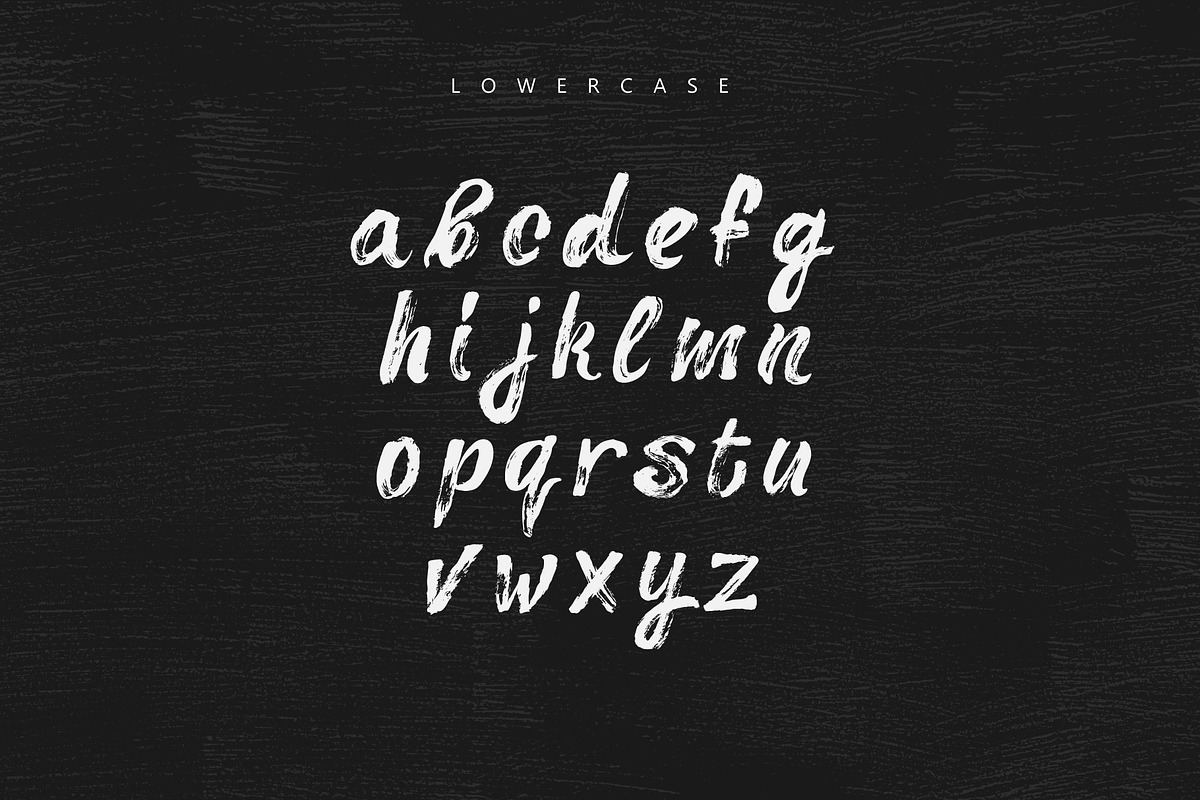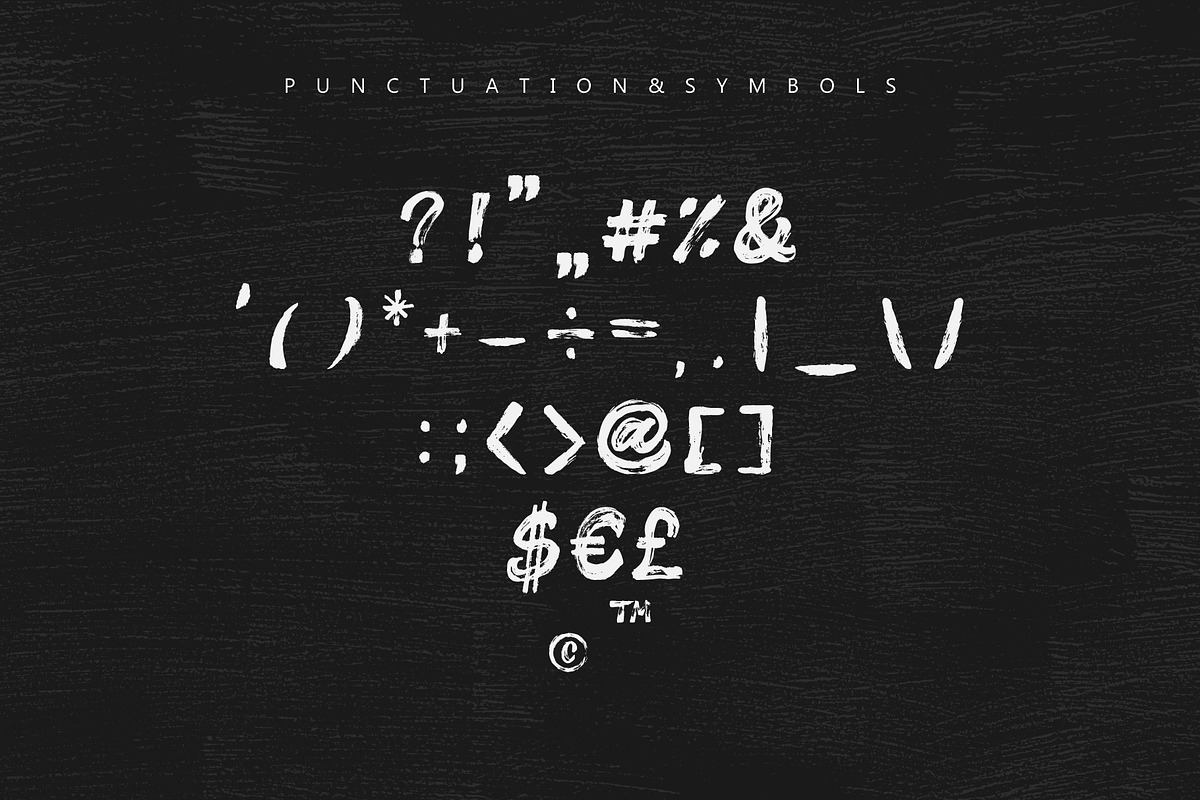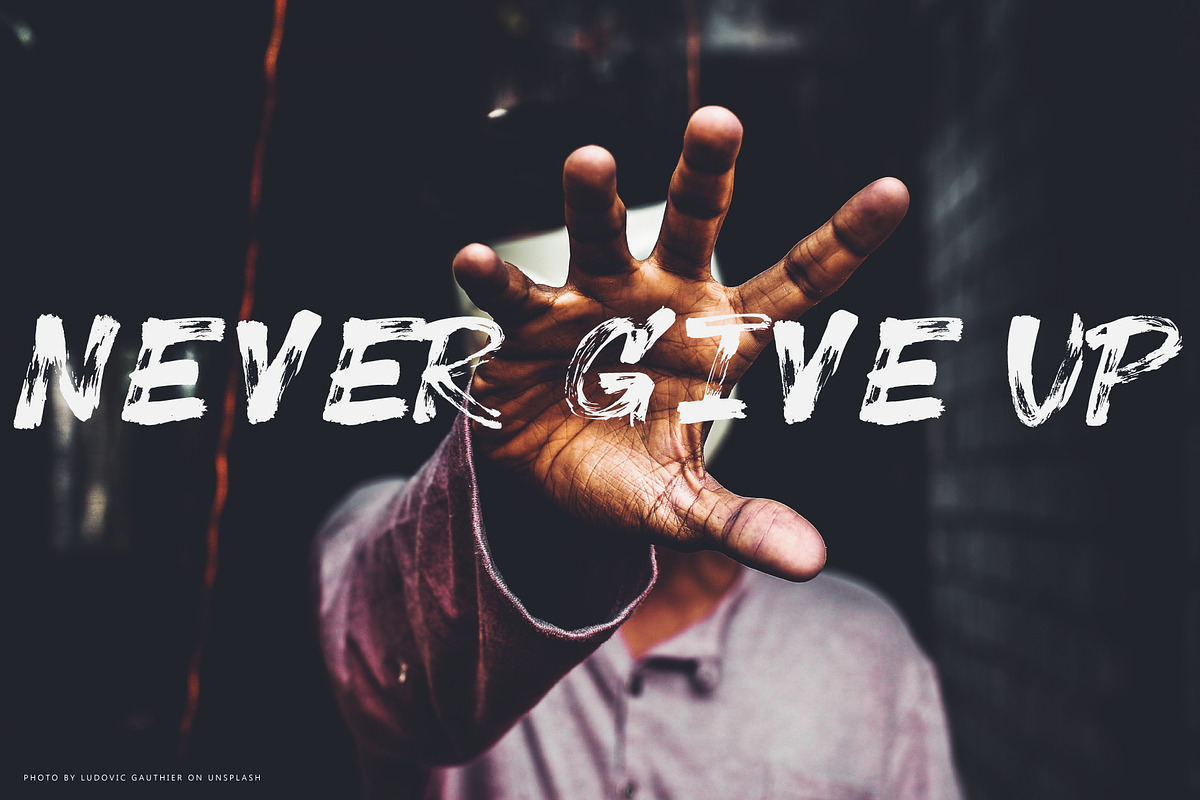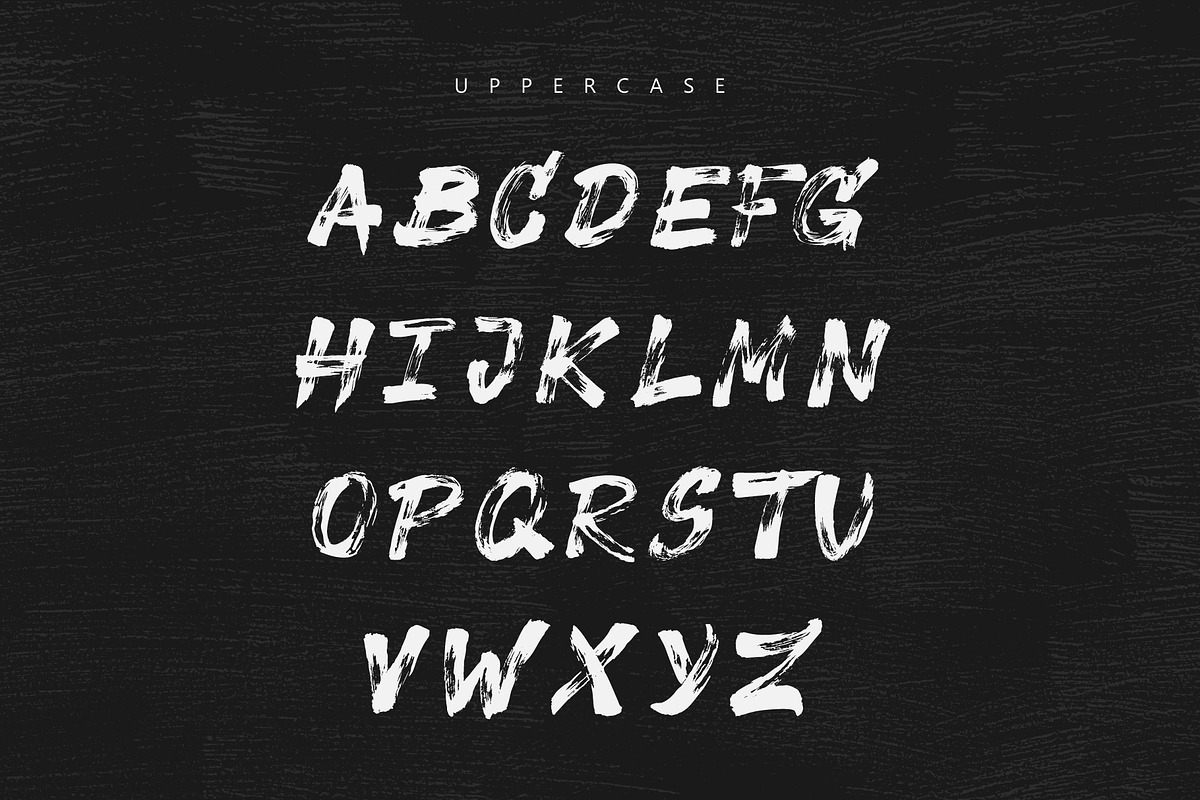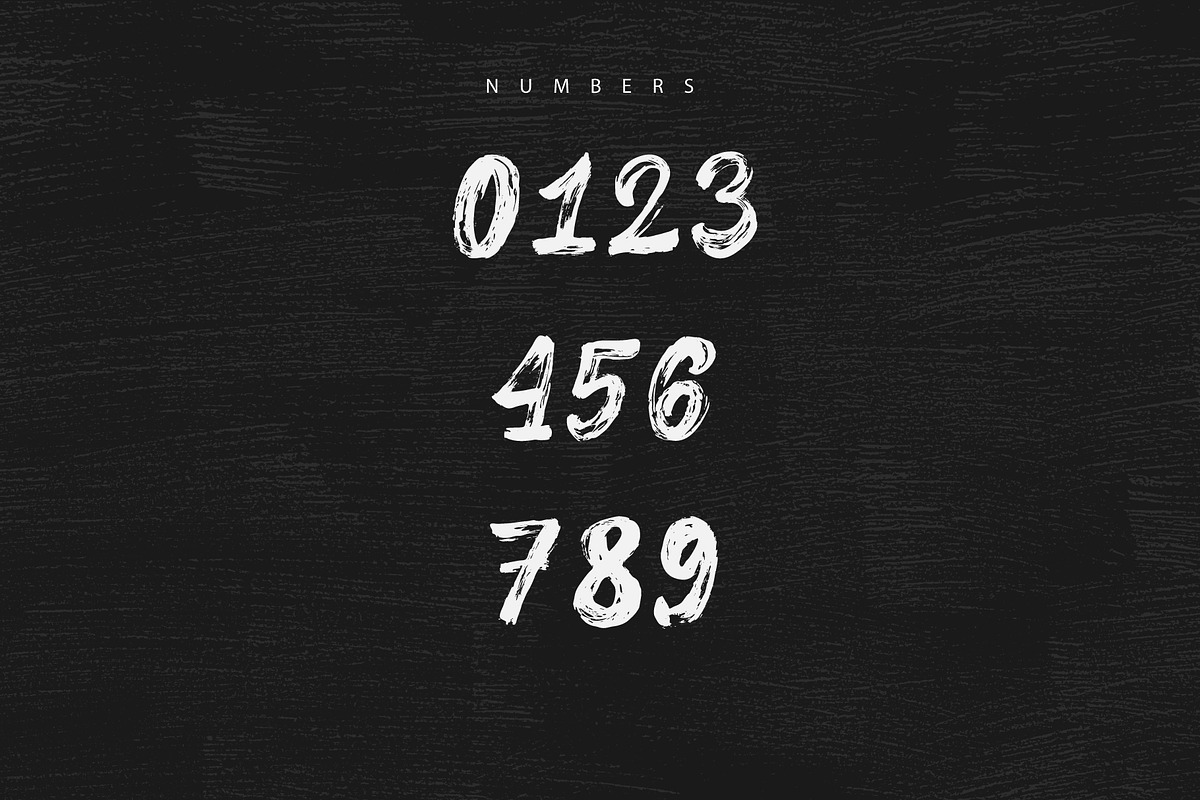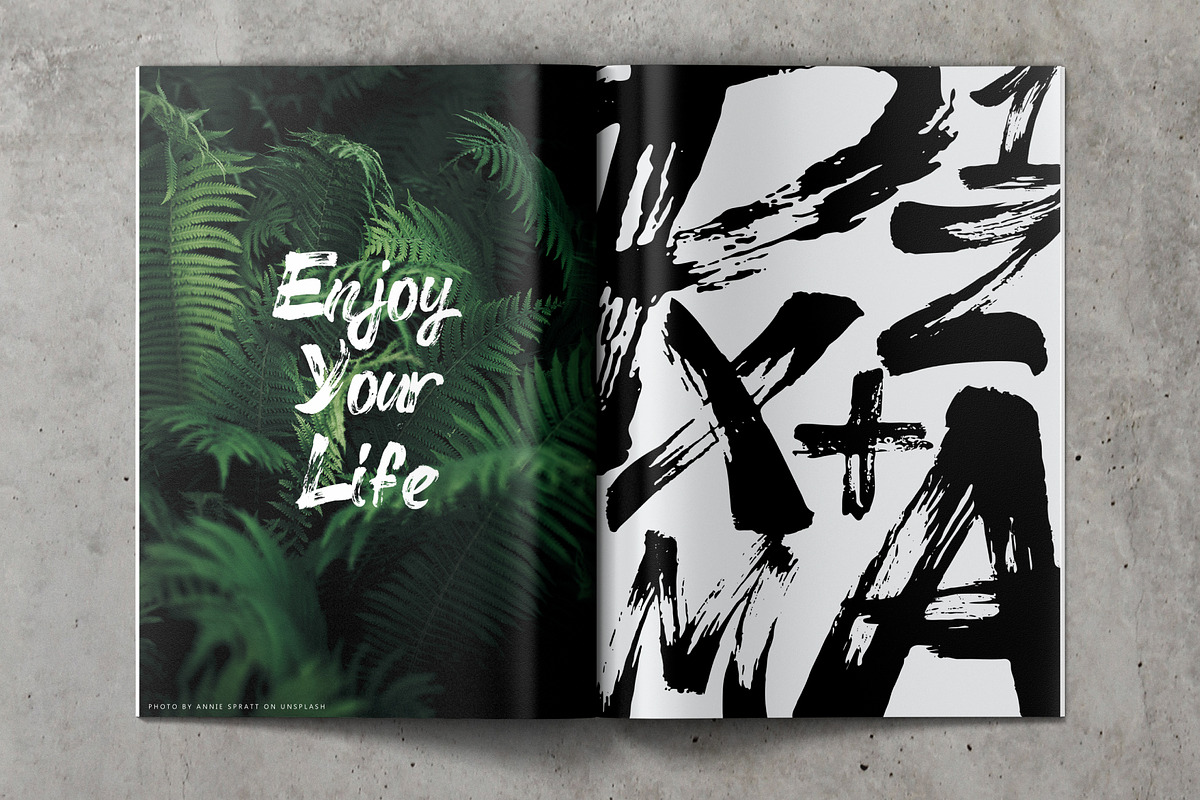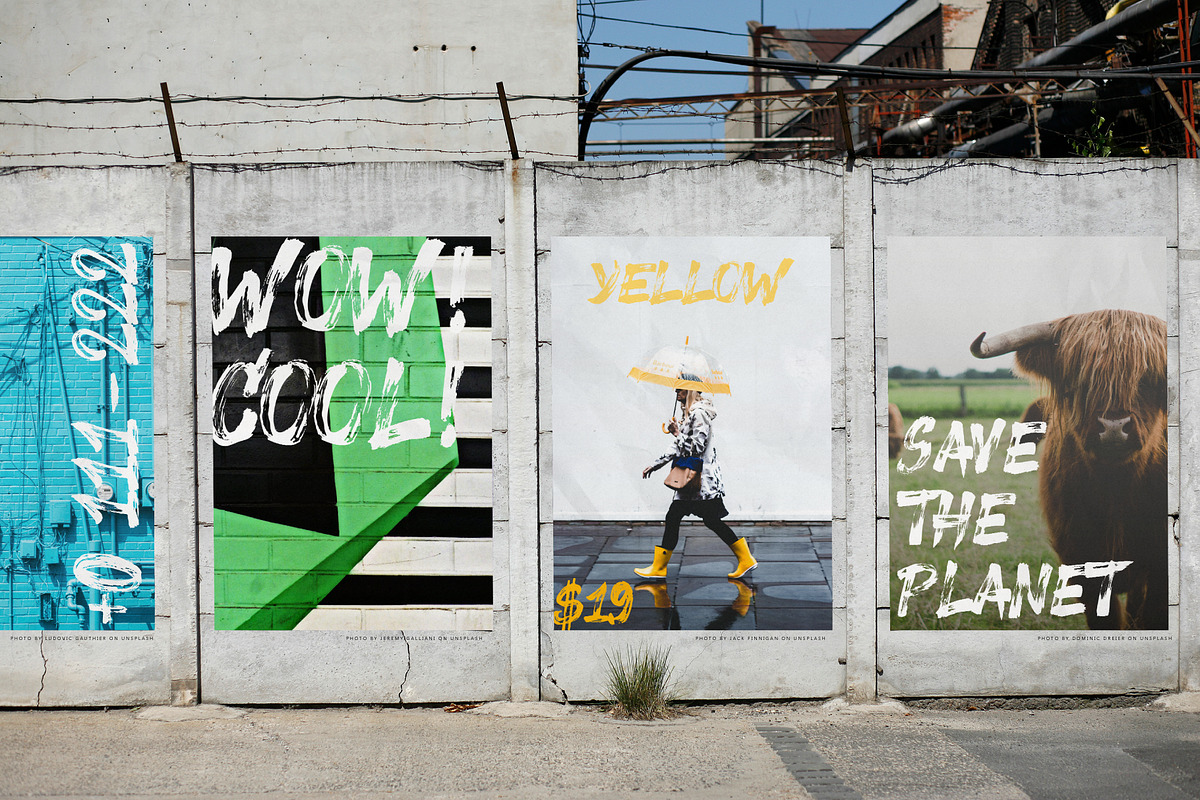
Shuher Brush Font
A hand-painted hard brushed font with strong character🔥. So ragged brush strokes and disorderly forms. The font ideal for your brutal logo designs, posters, social media posts, book covers & more.
The Shuher painted manually by hard brush+ink on office paper. We tried to save all details, all textures after scanning.💎